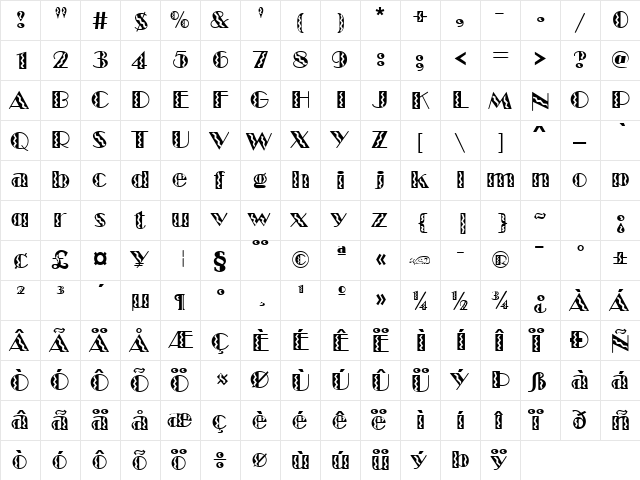
MarqueeFlash Regular
Design Context for MarqueeFlash Typeface
MarqueeFlash is a composed and adaptable typeface that performs quietly and consistently across a wide range of design contexts.
Pro Tip: Use MarqueeFlash in both headline and body roles to test its range before committing to a single application.